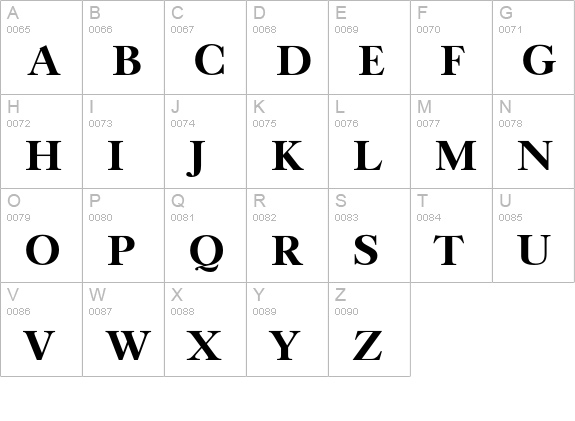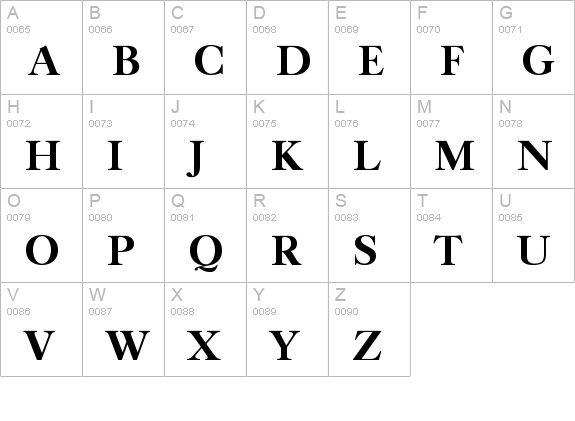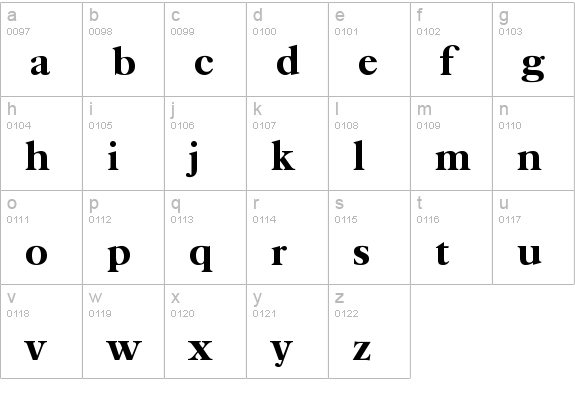
TFCaslonTen-Extrabold Font Details
TFCaslonTen-Extrabold is an extra-heavy, attention-grabbing variant in the TFCaslonTen typeface family \xE2\x80\x94 well suited to high-impact headlines, posters, and bold branding.
Introducing TFCaslonTen-Extrabold, a sensational font that exudes confidence and commands attention. With its bold and striking design, this typeface is perfect for adding a touch of elegance and professionalism to any project. TFCaslonTen-Extrabold stands out with its strong and assertive letterforms, creating a visual impact that leaves a lasting impression. Its generous curves and bold strokes give it a sense of power and authority, making it ideal for headlines, logos, and branding materials. This font's versatility is truly remarkable as it effortlessly transitions between modern and classic aesthetics. Whether you're working on a contemporary design or aiming for a more traditional feel, TFCaslonTen-Extrabold adapts effortlessly to suit your needs. But that's not all – the best part is that TFCaslonTen-Extrabold is available for free! Yes, you read that right. This exceptional font can be downloaded at FontsMarket.com, where you can access a wide range of premium fonts without spending a single penny. So why wait? Unleash your creativity and elevate your designs with TFCaslonTen-Extrabold. Download it today and experience the power of this extraordinary font.